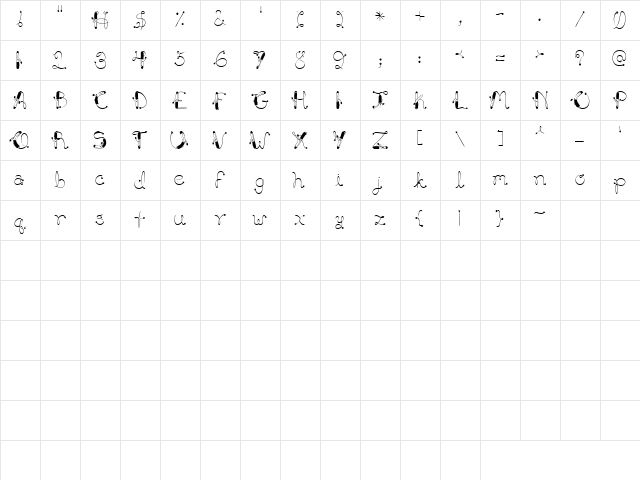
LD Curling Iron Regular
Design Context for LD Curling Iron Typeface
LD Curling Iron is a composed and adaptable typeface that performs quietly and consistently across a wide range of design contexts.